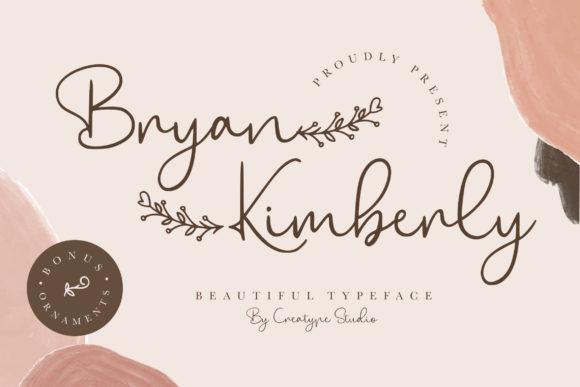
Bryan Kimberly Font: A Beautiful Handwritten Font with Cute Ornaments
Are you a designer or crafter looking for a unique and versatile font to elevate your designs? Look no further than the Bryan Kimberly font! This stunning handwritten font is complete with cute ornaments, making it a masterpiece that’s sure to capture your heart. In this article, we’ll dive into the features and benefits of the Bryan Kimberly font, and explore how you can use it to create spectacular designs.
What is Bryan Kimberly Font?
Bryan Kimberly font is a beautiful handwritten font that boasts distinct and well-rounded letters. Its unique character makes it stand out from other fonts, and its versatility ensures that it can be used in a wide range of design projects. Whether you’re creating a logo, branding materials, or social media graphics, the Bryan Kimberly font is sure to make your designs shine.
Key Features of Bryan Kimberly Font
- Handwritten style: The Bryan Kimberly font has a beautiful handwritten style that’s perfect for creating personal and emotive designs.
- Cute ornaments: The font comes complete with cute ornaments that add a touch of whimsy and playfulness to your designs.
- Distinct and well-rounded letters: The font’s letters are distinct and well-rounded, making it easy to read and recognize.
- Versatile style: The Bryan Kimberly font has an incredibly versatile style that can be used in a wide range of design projects.
Benefits of Using Bryan Kimberly Font
So, why should you choose the Bryan Kimberly font for your design projects? Here are just a few benefits of using this amazing font:
- Unique and eye-catching designs: The Bryan Kimberly font is sure to make your designs stand out from the crowd.
- Easy to read and recognize: The font’s distinct and well-rounded letters make it easy to read and recognize, even at small sizes.
- Perfect for branding and marketing materials: The font’s handwritten style and cute ornaments make it perfect for creating branding and marketing materials that are personal and engaging.
- Great for social media graphics: The Bryan Kimberly font is also great for creating social media graphics that are eye-catching and engaging.
- Use it for headings and titles: The font’s handwritten style and cute ornaments make it perfect for headings and titles.
- Add ornaments and graphics: The font’s cute ornaments are a great way to add visual interest to your designs.
In conclusion, the Bryan Kimberly font is a beautiful handwritten font with cute ornaments that’s perfect for designers and crafters. Its distinct and well-rounded letters make it a masterpiece, and its incredibly versatile style ensures that it can be used in a wide range of design projects. Whether you’re creating logos, branding materials, or social media graphics, the Bryan Kimberly font is sure to make your designs shine. So why wait? Fall in love with the Bryan Kimberly font and start creating spectacular designs today!